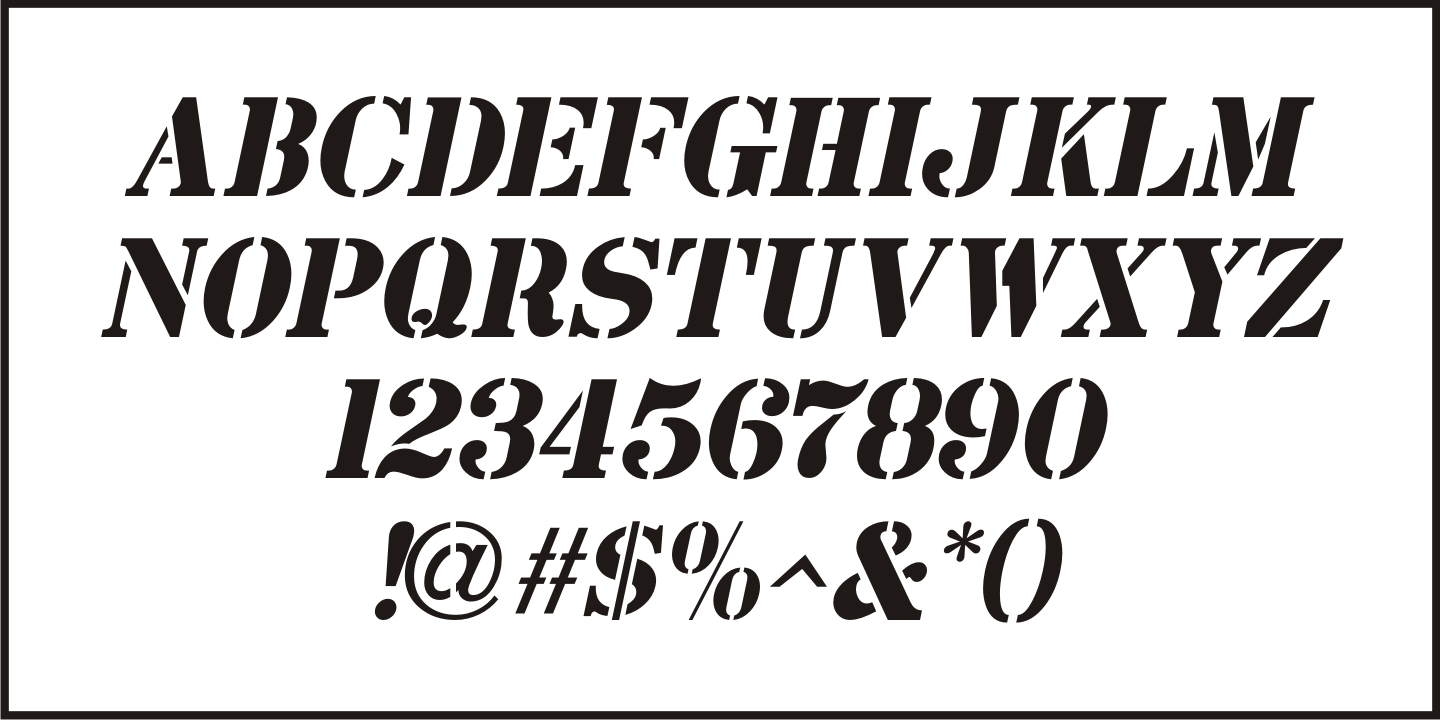
Work Yard Stencil Font is a powerful and utilitarian typeface, perfectly suited for projects that demand a rugged, industrial, and unmistakably authentic aesthetic. Imagine it dominating the signage for construction sites, adding a bold and no-nonsense edge to heavy-duty equipment branding, or making an unmissable statement on posters for urban and outdoor events. It's also an excellent choice for crafting striking logos for durable goods companies, designing impactful merchandise for workwear brands, or bringing a raw, powerful vibe to digital content and advertisements with a strong, hands-on appeal. If you're looking to convey strength, durability, and an undeniable sense of hard work, Work Yard Stencil Font is an outstanding selection.
What makes Work Yard Stencil Font so exciting? It’s its unique ability to combine the practical precision of traditional stenciling with a robust, often weathered or textured finish, creating an immediate visual impact. This font features strong, blocky letterforms with the characteristic breaks of a stencil, giving it an undeniable authenticity and a tough, industrial charm. Despite its bold and often raw visual presence, Work Yard Stencil Font is crafted to maintain excellent readability, ensuring that your message is delivered with both clarity and significant force. Designers will appreciate its versatility in creating designs that are both visually assertive and deeply memorable, making it a go-to choice for projects that need to embody the spirit of hard work, grit, and enduring quality.
The Work Yard Stencil Font family is typically designed to maximize its formidable and distinctive aesthetic. While it might primarily feature a singular, intensely bold weight that perfectly embodies its unique style, you could find variations that enhance its utility, such as distressed versions for an even grittier, worn-out feel, or stylistic alternatives that offer more creative typographic possibilities to deepen its industrial appeal. These variations ensure that Work Yard Stencil Font maintains its cohesive and high-impact visual identity across different design applications, from monumental titles to supporting text that still carries significant weight. Discover the formidable power of Work Yard Stencil Font Free Download and infuse your designs with an unforgettable sense of rugged authenticity.